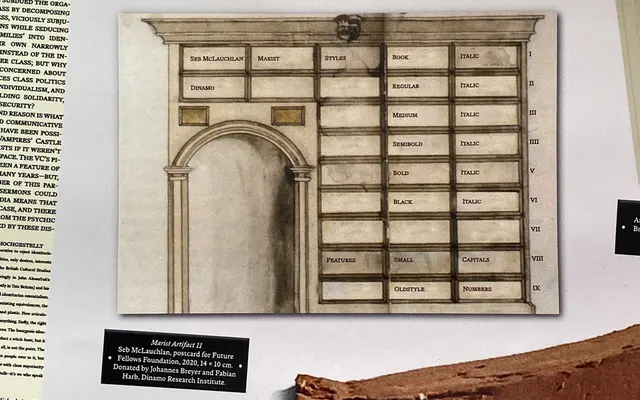
ABC Marist
Dinamo Typefaces · Seb McLauchlan · 2023
A warm Old Style serif by Seb McLauchlan, picking up threads from Jenson's roman and William Morris's Golden Type for contemporary reading.
An Old Style serif by Seb McLauchlan, drawn from afternoons in archives investigating Nicolas Jenson's highly legible 15th Century Venetian roman and William Morris's 19th Century Golden Type, his craft-focused reinterpretation of Jenson. Marist fine-tunes those threads for contemporary eyes and digital libraries, with prominent serifs and wide uppercase proportions that take their time. Six weights from Book to Black ship with matching italics and small caps, sitting comfortably in long-form editorial, books and brand systems that want warmth and historical depth.
Dinamo describes Marist as a warm, reader-friendly font with prominent serifs and wide uppercase proportions, inspired by the Old Style genre, specifically Nicolas Jenson's 15th Century Venetian roman and William Morris's 19th Century Golden Type.